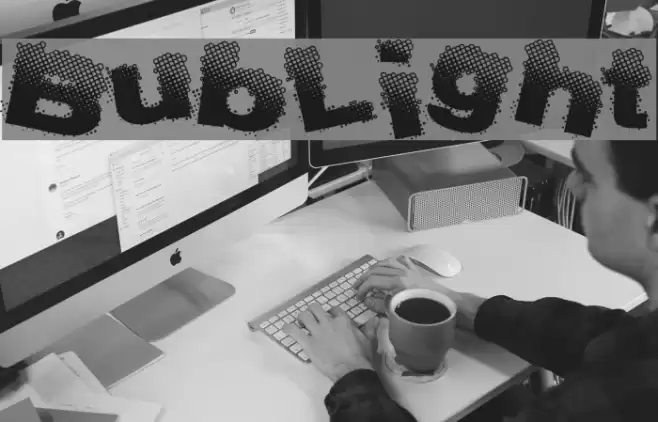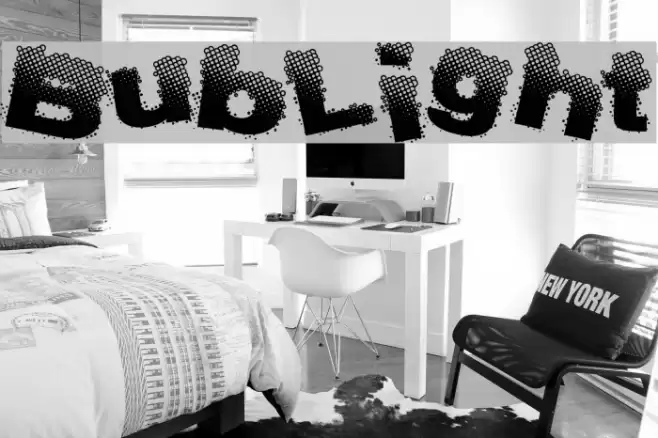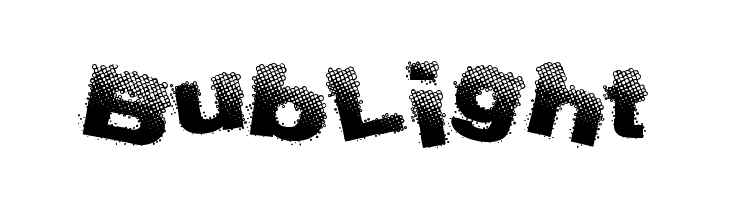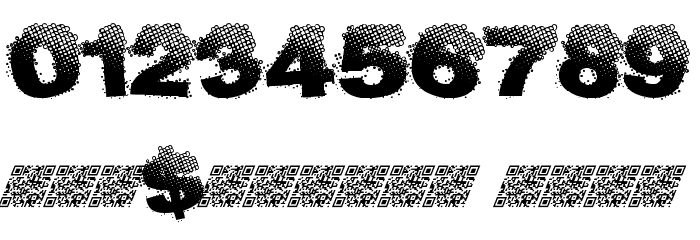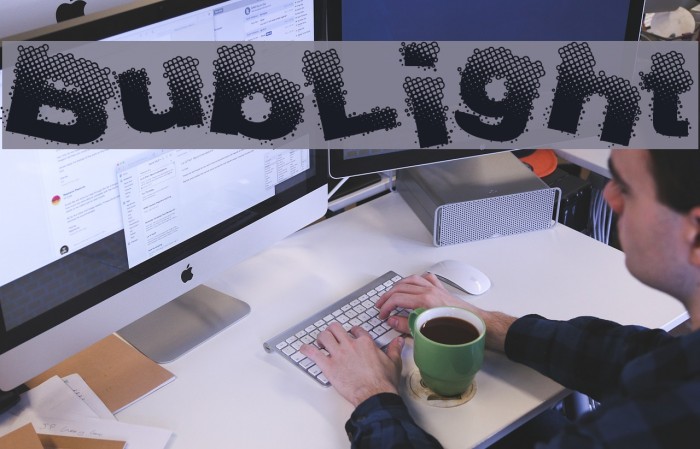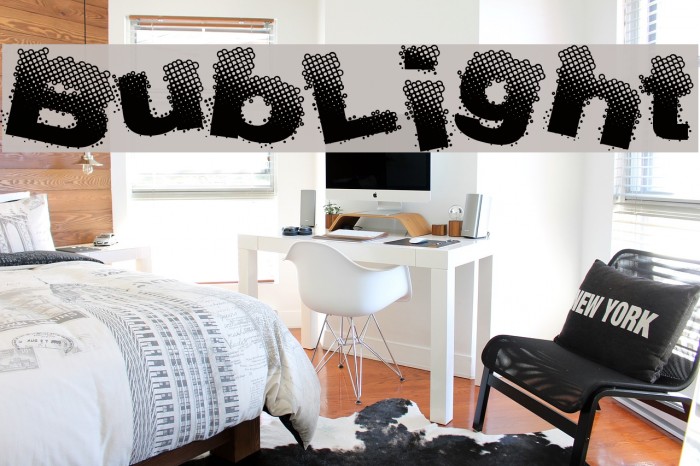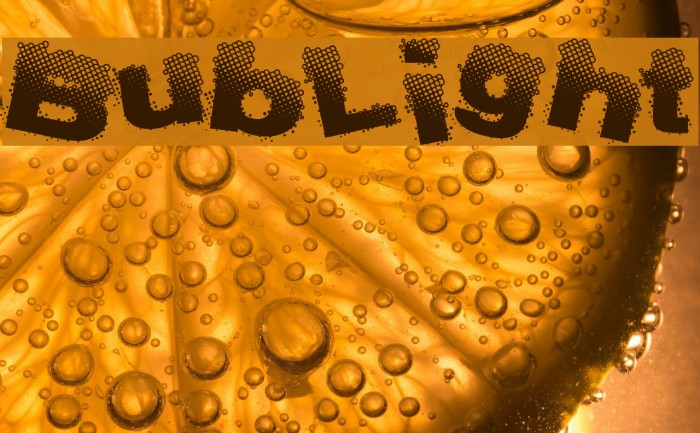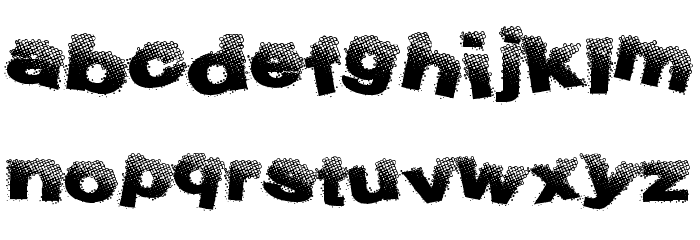
BubLight Font
BubLight Description
This font features a playful and bold design with a unique halftone pattern that gives it a textured, retro feel. The characters are rounded and slightly inflated, resembling bubbles or balloons, which adds a sense of fun and whimsy. The uppercase and lowercase letters maintain a consistent style, with a strong presence and a slightly condensed form. The numbers and special characters follow the same design principles, ensuring a cohesive look across all elements. This font is ideal for projects that require a touch of nostalgia or a playful, eye-catching aesthetic.
A bold, playful font with a halftone texture and bubble-like appearance from Distorted Eroded fonts.
- Proposed Projects: Perfect for children's books, comic strips, playful branding, retro-themed posters, and party invitations.
- Overall Style: Retro, Playful